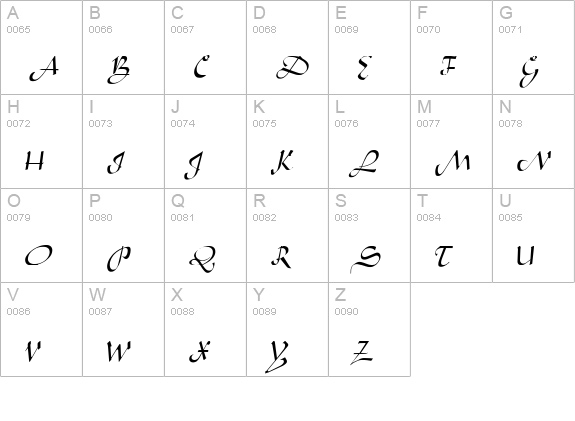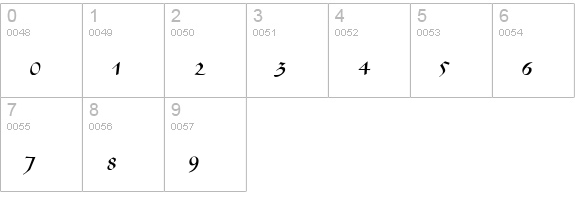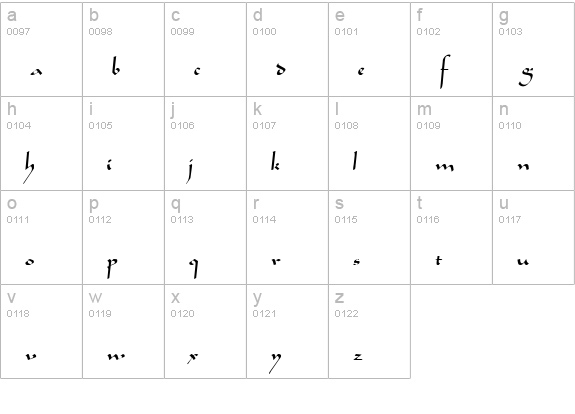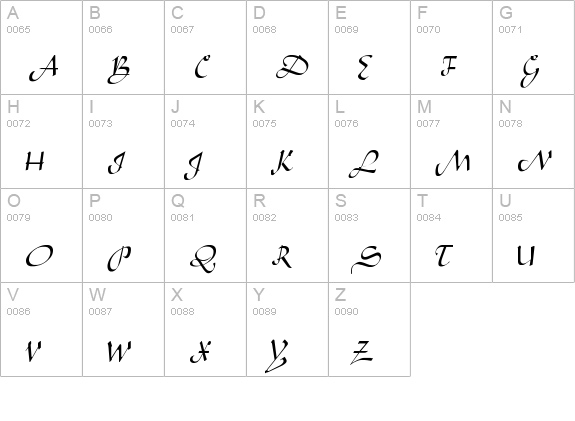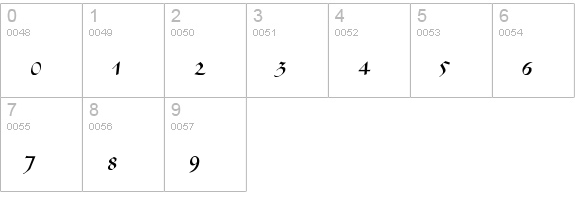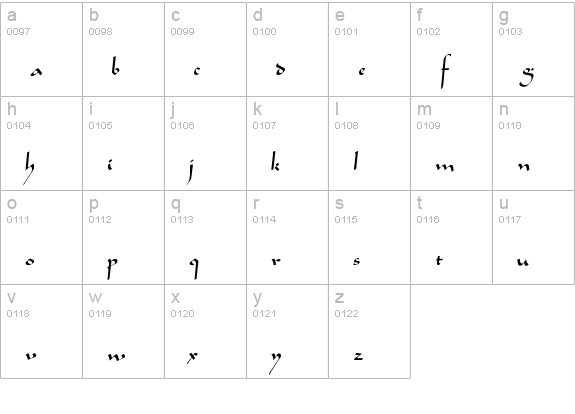
Arabian Normal is the standard, neutral variant in the Arabian typeface family \xE2\x80\x94 well suited to general body text, paragraphs, and standard typographic work.
Arabian Normal font is a stunning and elegant typeface that captures the essence of Arabian calligraphy with its intricate strokes and graceful curves. This font exudes a sense of sophistication and cultural richness, making it a perfect choice for projects that require a touch of exotic beauty. What sets Arabian Normal font apart is its seamless integration of traditional Arabian script with modern typographic elements, resulting in a truly unique and versatile design. Whether used for branding, advertising, or editorial purposes, this font will surely make a statement and leave a lasting impression. Best of all, Arabian Normal font is available for free download at FontsMarket.com, allowing designers and creatives to easily access this beautiful typeface and incorporate it into their projects with ease. Don't miss out on the opportunity to enhance your designs with the timeless beauty of Arabian Normal font – download it today and let your creativity soar!